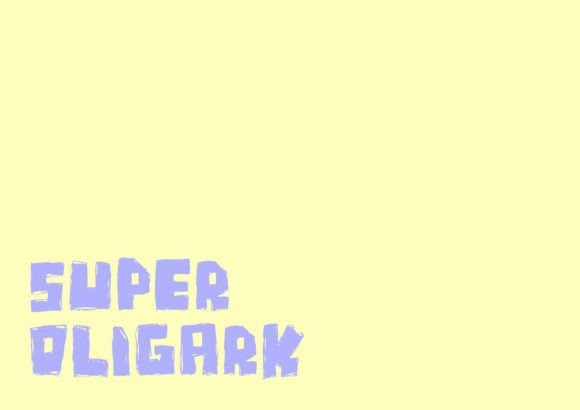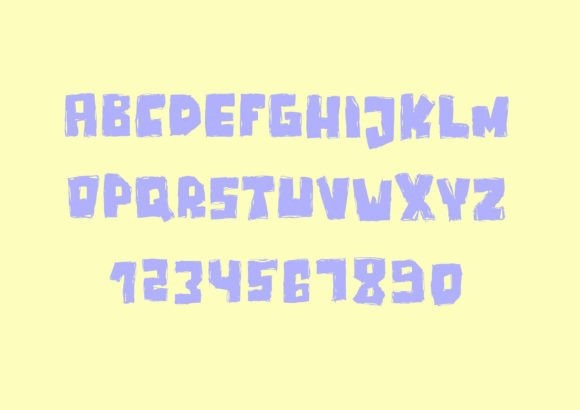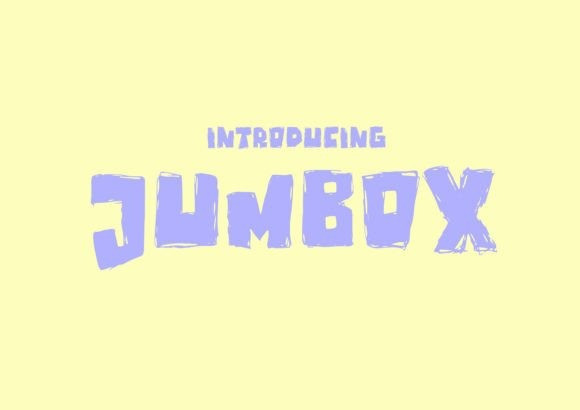
Jumbox Display Font
Jumbox Display Font is a chubby and fun paint-brushed display font. It embodies playfulness and authenticity and is the perfect choice for any children’s activity or school project.